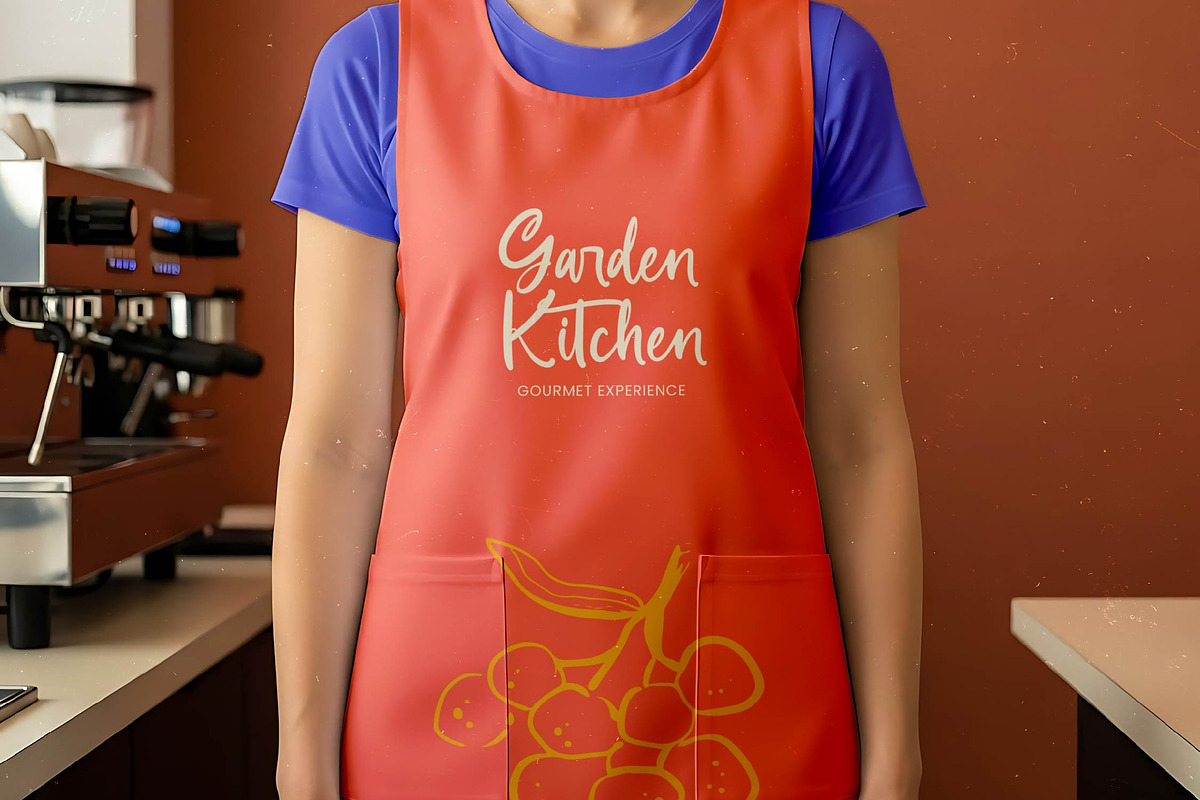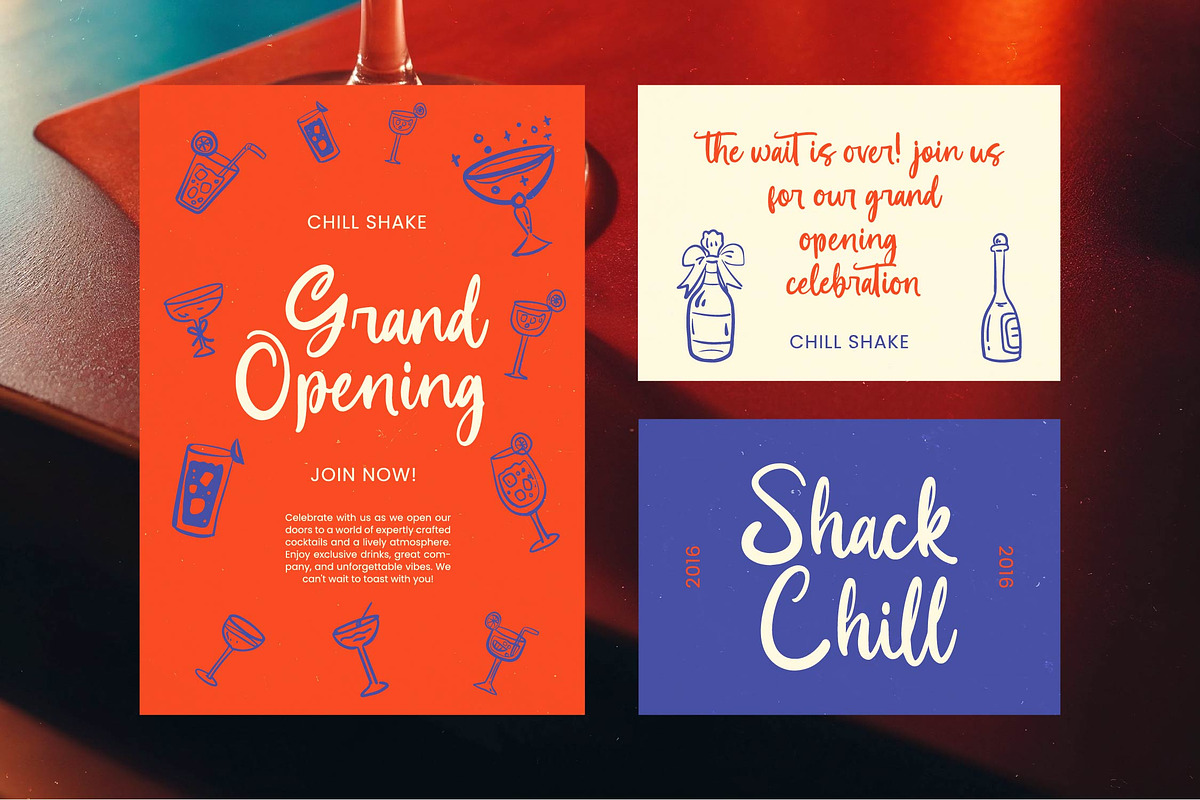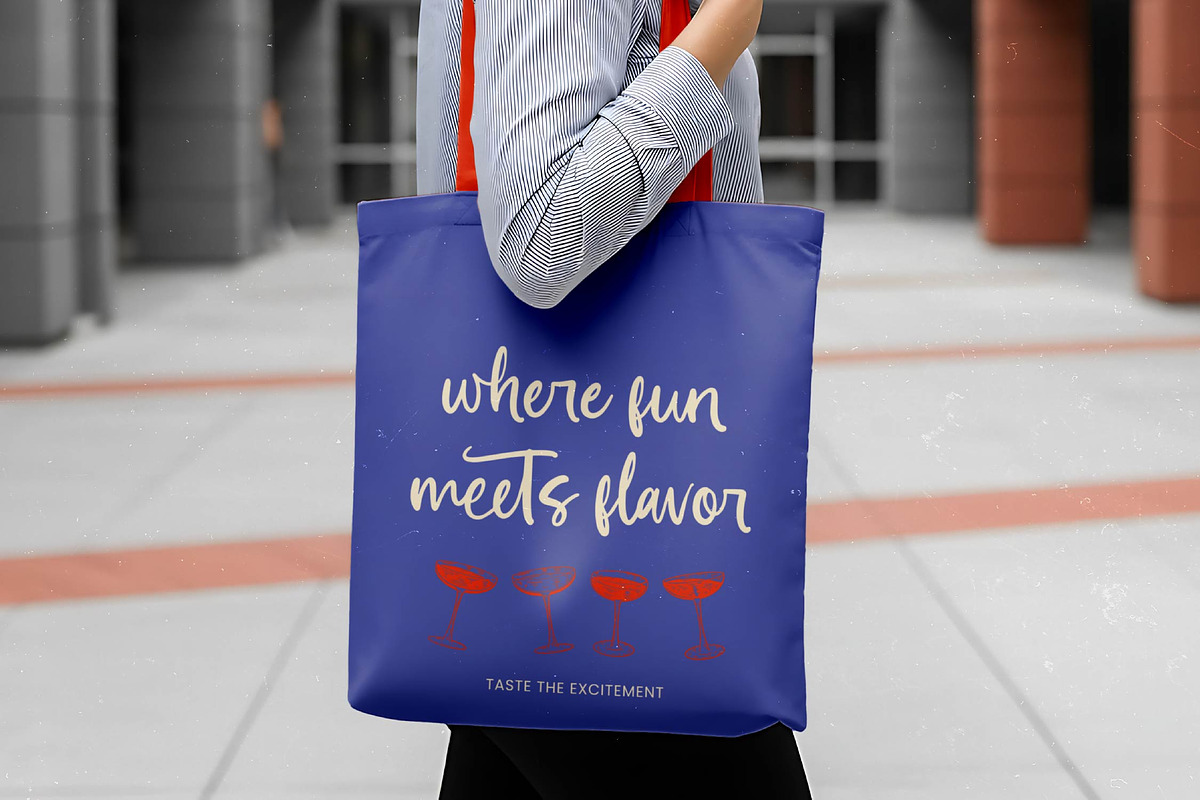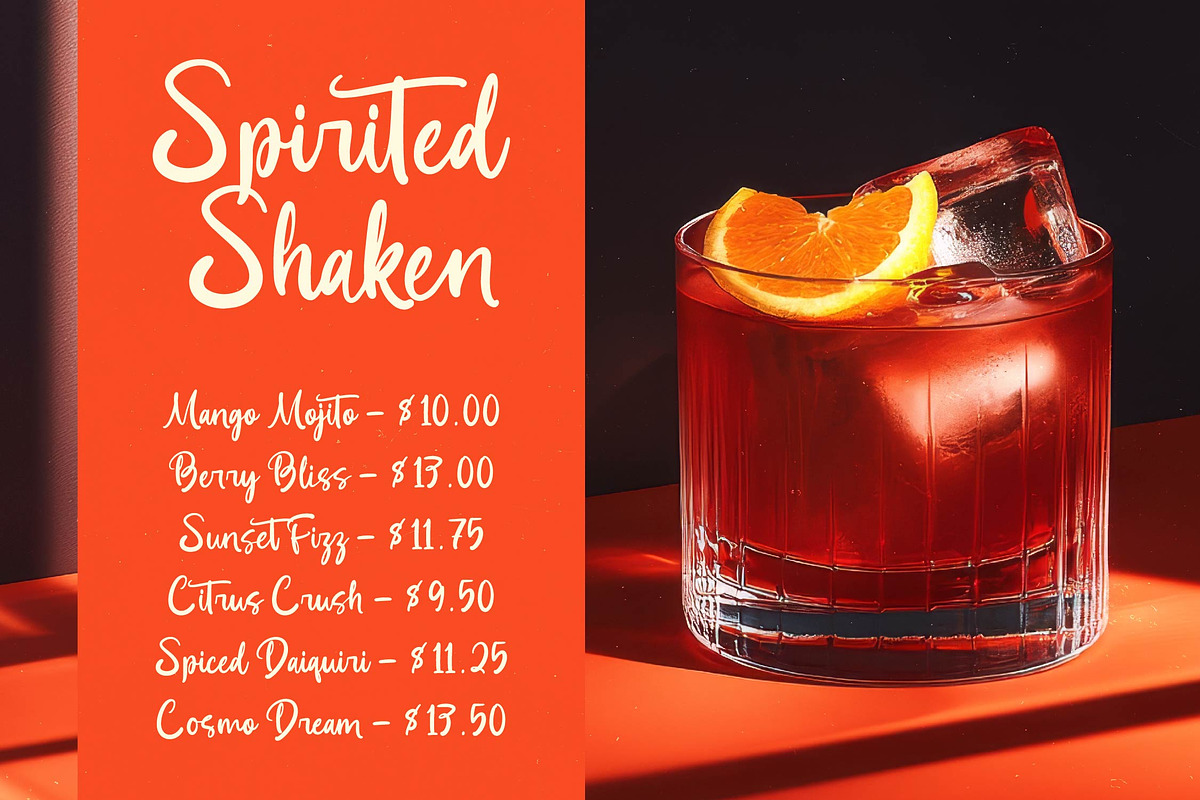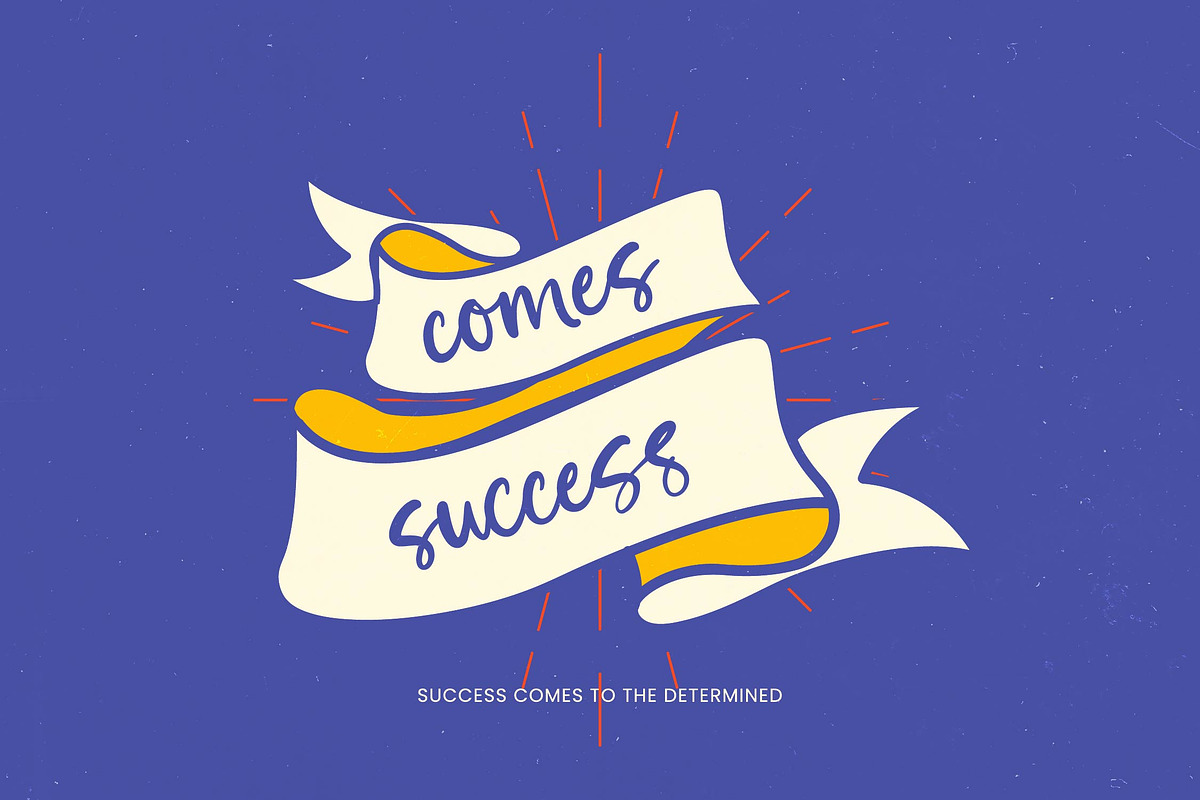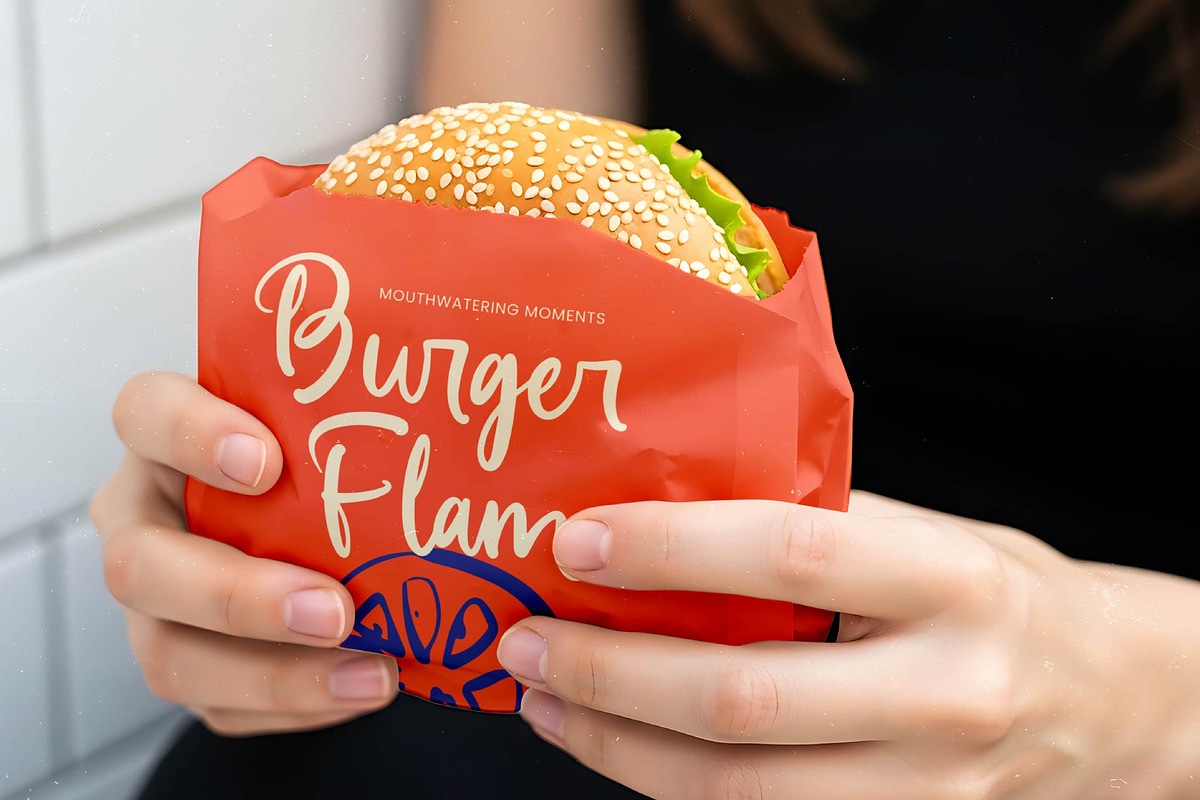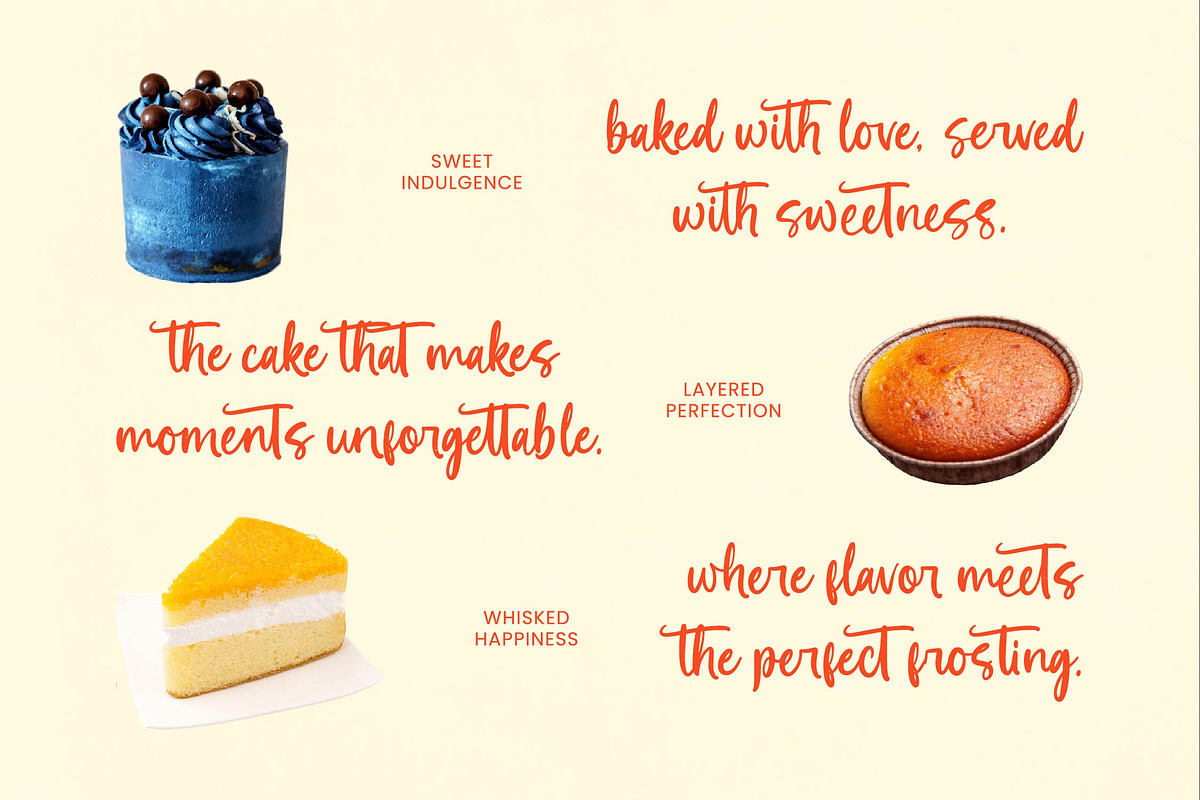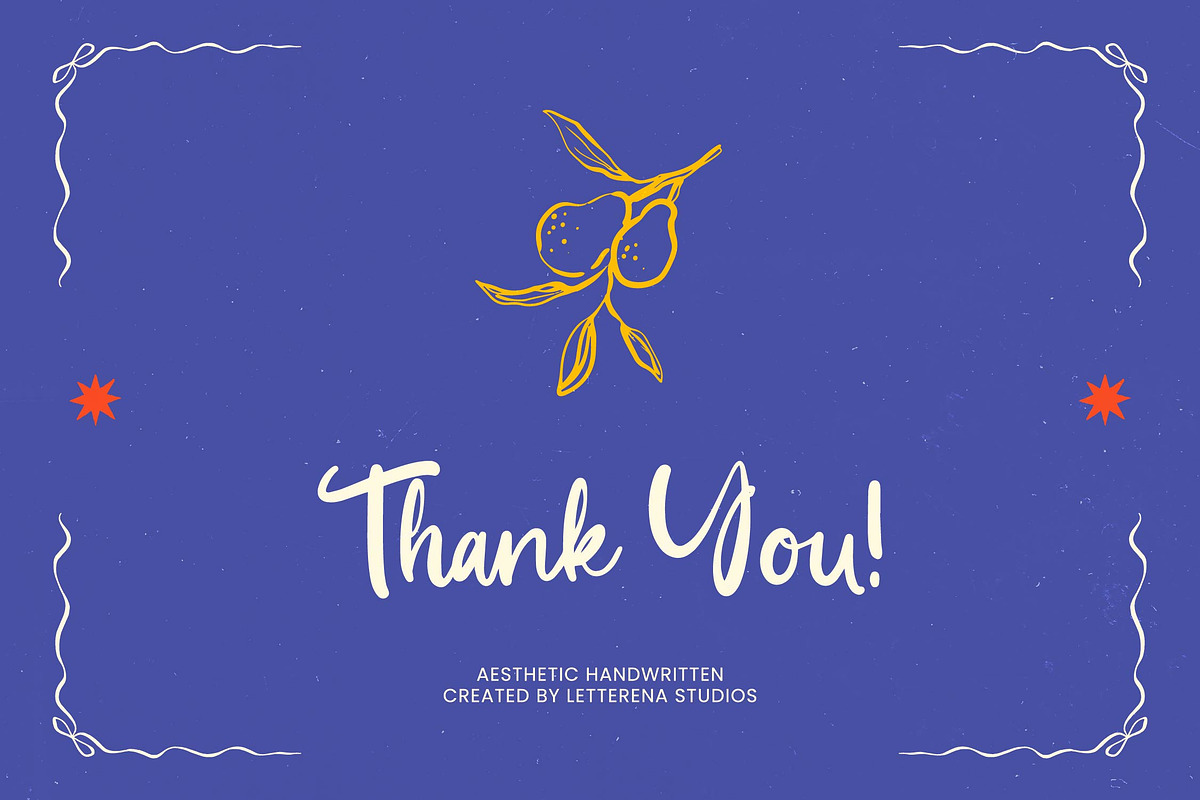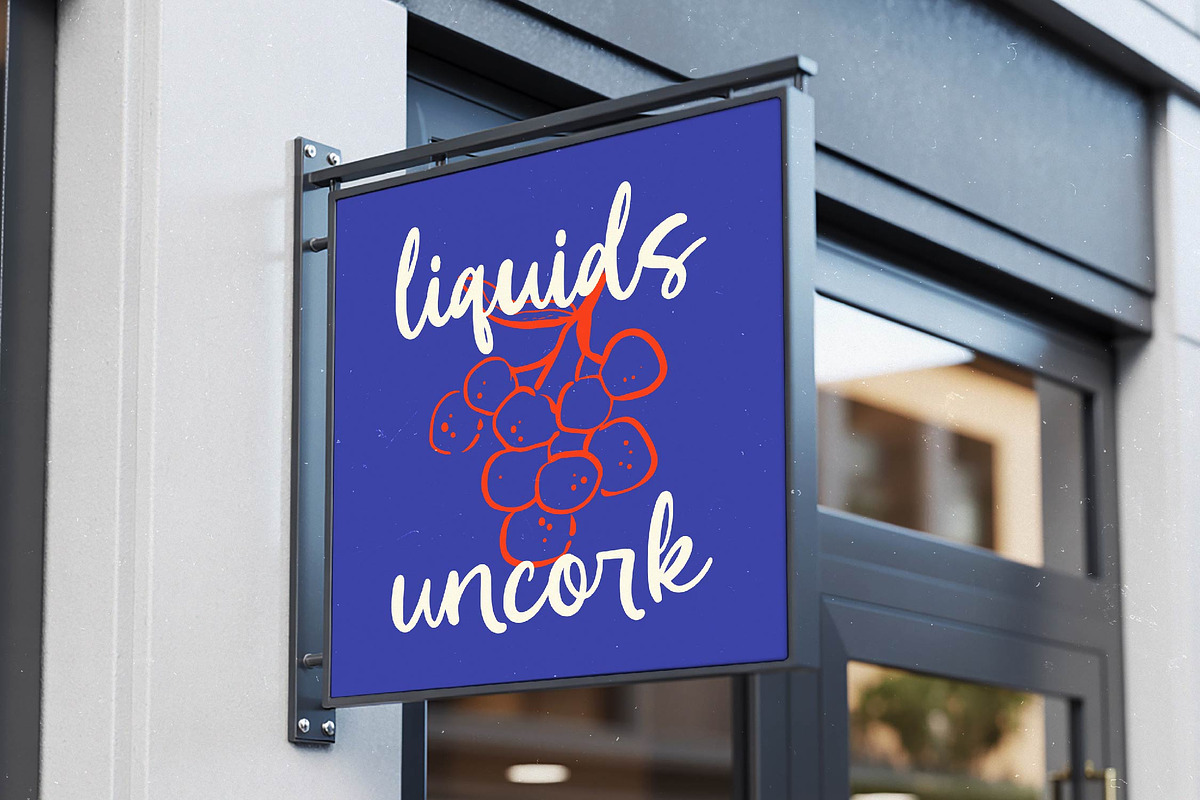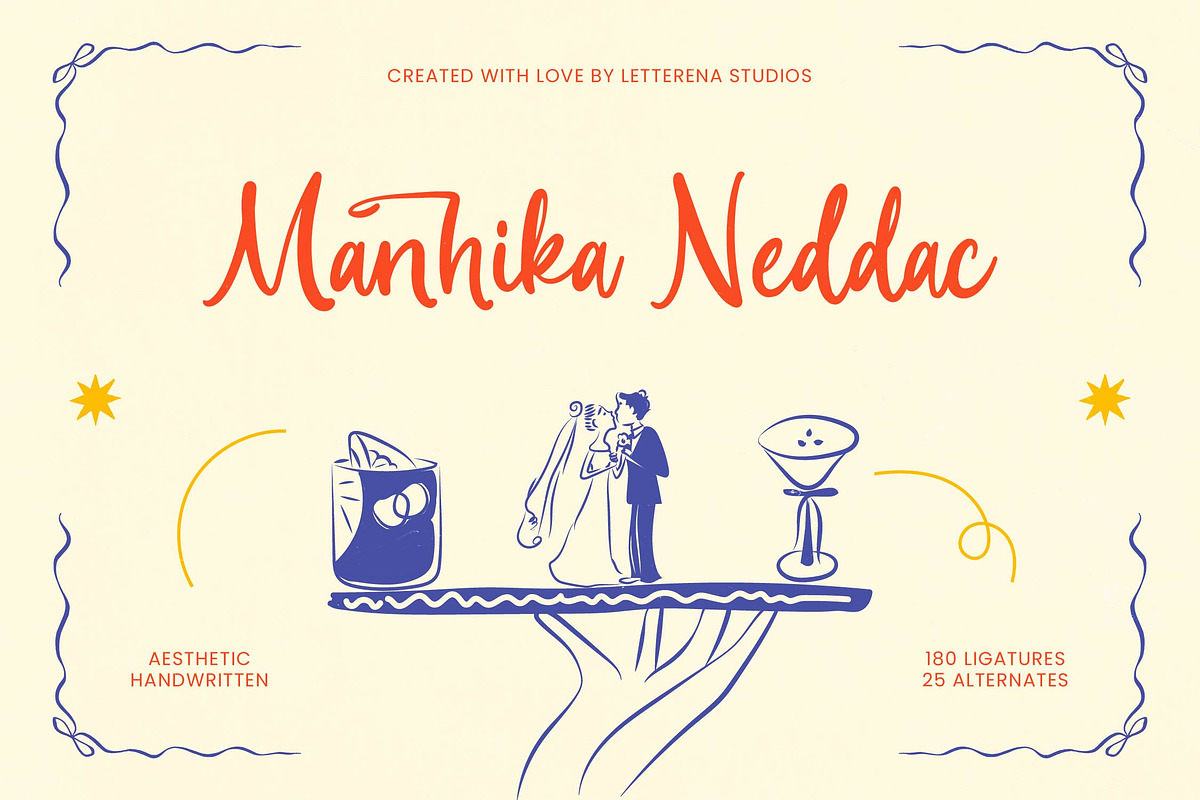
Manhika Neddac Aesthetic Handwritten
Manhika Neddac – Aesthetic Handwritten Font Elevate your creative vision with the sophisticated charm of Manhika Neddac – Aesthetic Handwritten Font. This premium script captures the essence of hand-lettered artistry, blending fluid motion with a contemporary aesthetic that feels both personal and professional. Its tall letterforms and natural rhythm provide an authentic signature look, making it an essential tool for designers seeking to add a bespoke touch to their digital and print projects.
Designed for high-impact storytelling, Manhika Neddac – Aesthetic Handwritten Font is perfect for a diverse range of creative applications. This typeface excels in luxury branding, editorial layout design, and high-end product packaging, where a human touch is required to resonate with a discerning audience. It is also the ideal choice for wedding stationery, lifestyle photography, and boutique visual identities that demand a sense of refined elegance and artistic flair.
Expand your creative horizons with a versatile tool built for the modern, global marketplace. With its extensive multilingual support, Manhika Neddac – Aesthetic Handwritten Font adapts seamlessly across global markets, making it incredibly versatile for international projects. This technical excellence ensures that your brand message remains consistent and visually stunning regardless of the region, providing a unified aesthetic for cross-border marketing and digital communication.
Experience unparalleled flexibility through a rich set of typographic features that bring your layouts to life. Manhika Neddac – Aesthetic Handwritten Font includes 180 expressive ligatures and 25 character alternates, allowing for unlimited customization and a truly custom-made appearance. By leveraging these advanced OpenType features, you can achieve a polished, professional finish that transforms any standard design into a compelling visual masterpiece.